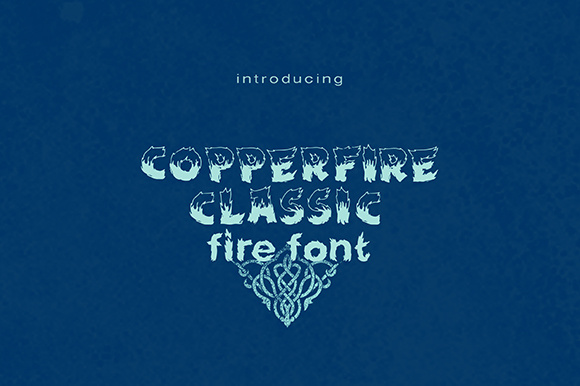
Behold Copperfire, a font that unleashes a mesmerizing fusion of vigor and refinement, etching your designs with both power and elegance. Born from the creative genius of brnk1314, this display font ignites a spark of individuality in your projects, captivating your audience with its captivating charm.
Journey through a world of creative possibilities with Copperfire, where uppercase and lowercase letters dance in perfect harmony, crafting words that whisper of casual sophistication. Its distinct character shines through effortlessly, whether you're conjuring stunning logos, eye-catching headlines, or captivating social media posts.
With Copperfire as your creative ally, you'll command attention effortlessly, leaving an indelible mark on every design you touch. Its inherent strength and elegance converge to create a font that transcends boundaries, adapting seamlessly to a myriad of design styles. Unleash your imagination and let Copperfire elevate your creative endeavors to new heights.
In a world saturated with uniformity, Copperfire emerges as a beacon of individuality, empowering you to craft designs that resonate with authenticity and flair. Its versatility knows no bounds, effortlessly transforming concepts into captivating realities. Embrace Copperfire and embark on a creative odyssey where each design tells a unique story.